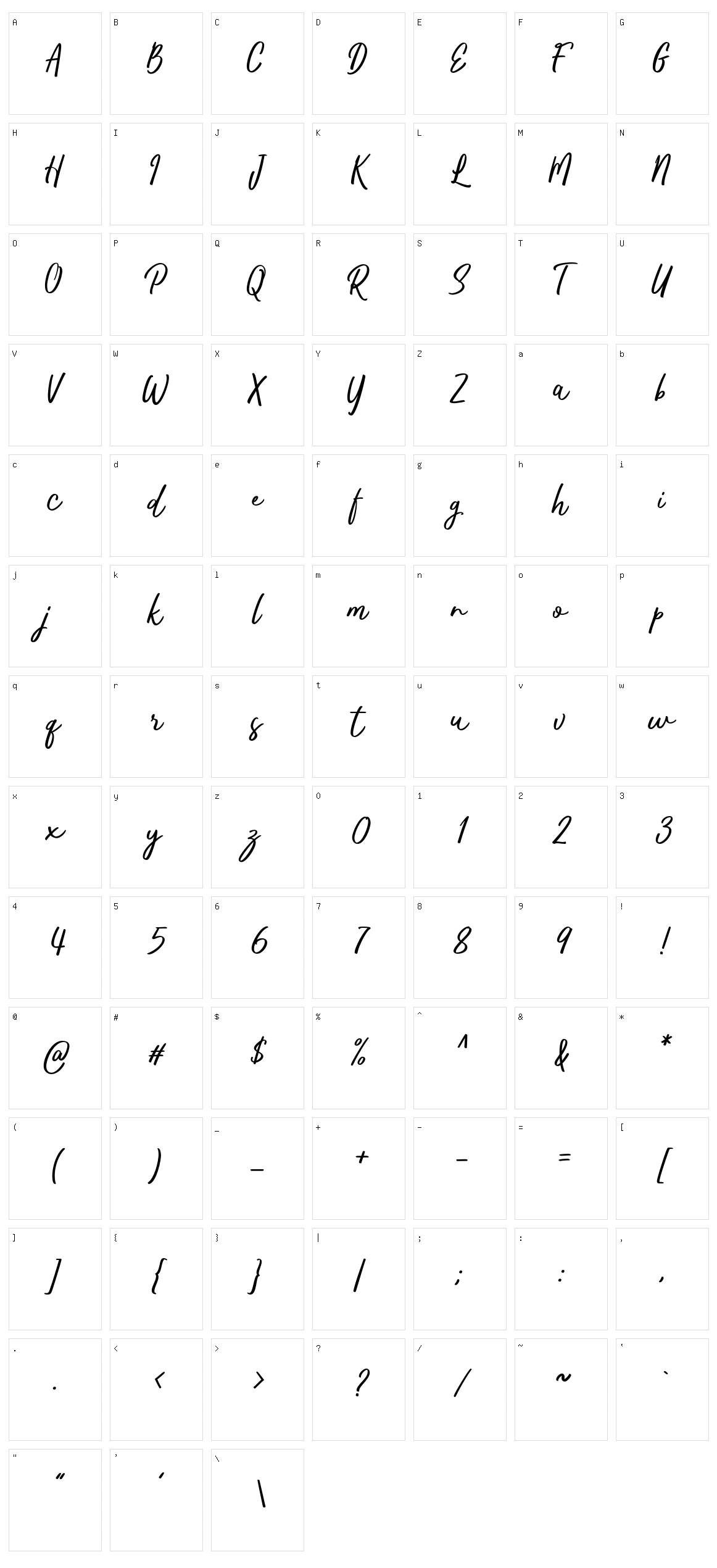
Kaftice is a casual handwritten font created based on unique brush strokes.
To add a personal impression, you can put a simple swash at the beginning and end of a word by activating the swash feature or by placing two underscores before / after a letter. In addition, Kaftice also includes standard ligature to make your typography more interesting.